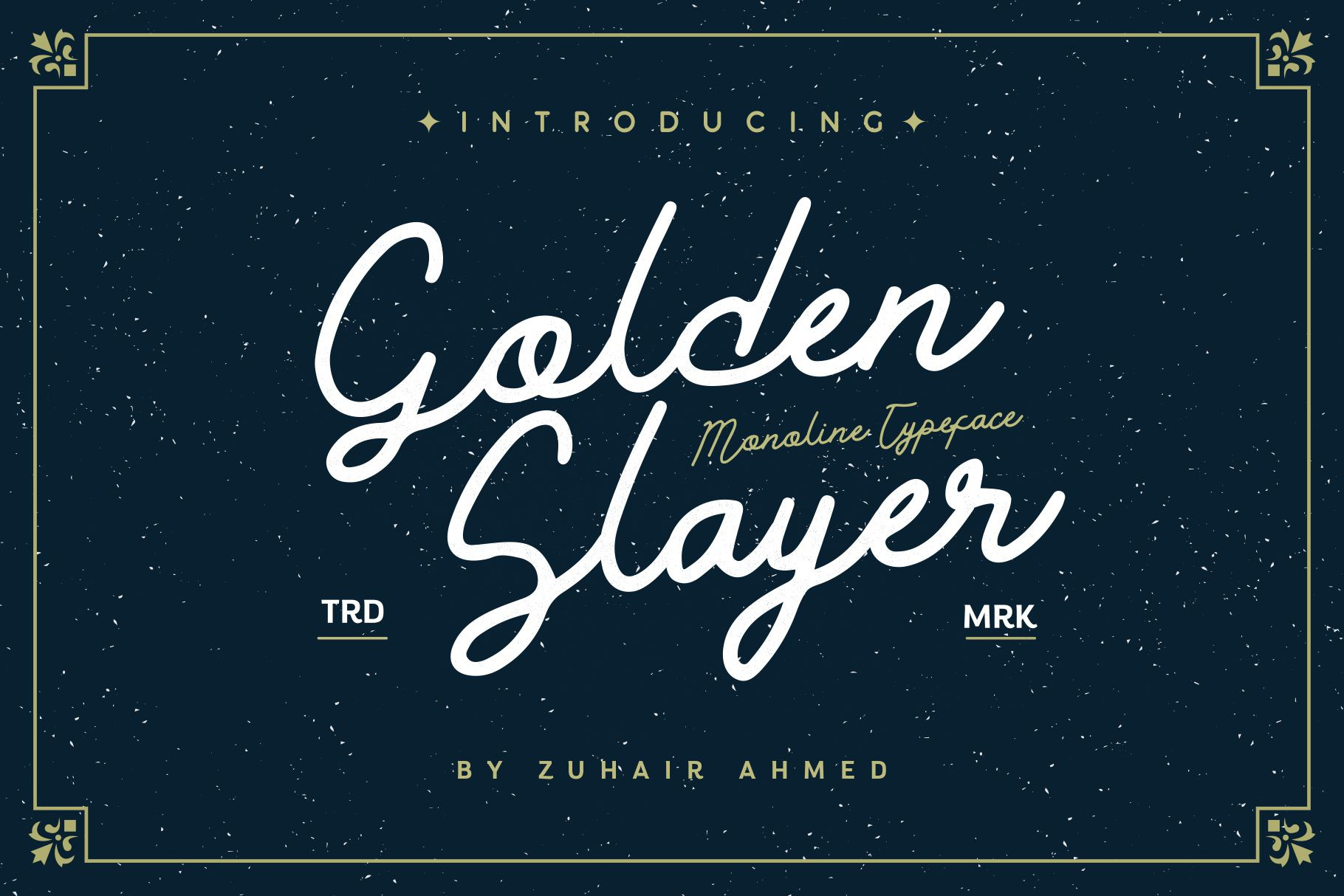
Golden Slayer - Monoline Typeface
Golden Slayer is a fun and cool handwritten font with a casual feel. It will turn any design project into an eye-catcher! Golden Slayer is easily to use for your work ; Branding, Logo Design, Lettering, Clothing, Poster and others.